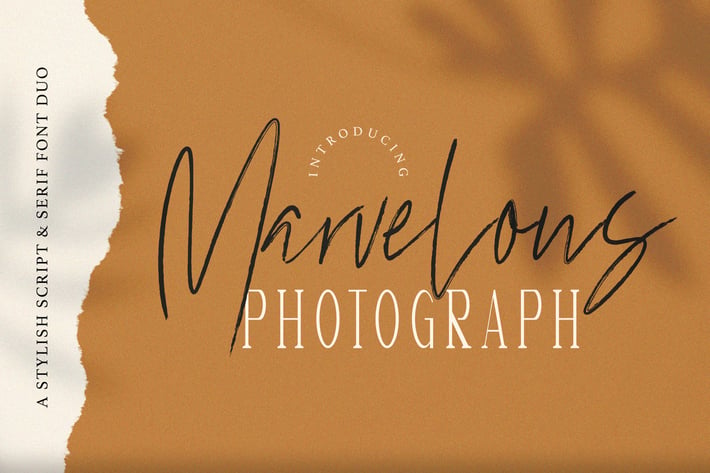
Marvelous Photograph - Font Duo
Introducing Marvelous Photograph - Font Duo
Marvelous Photograph Font duo is a stunning pair of luxury script and serif fonts. These typefaces are designed to contrast and compliment each other with elegant beauty and contemporary style. Use Marvelous Photograph to create gorgeous wedding invitations, beautiful stationary art, eye-catching social media posts, and cute greeting cards.